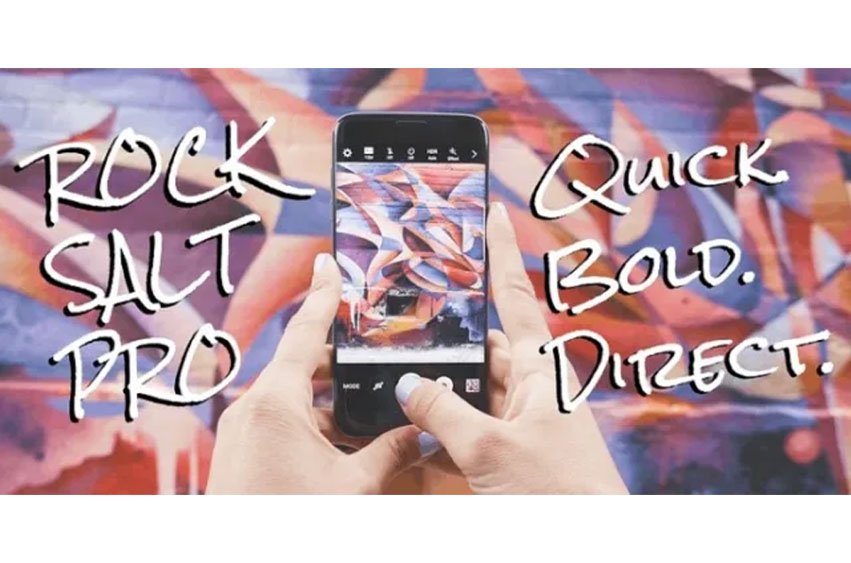
Rock Salt Pro Font Handcrafted with felt tip pens to create a personal style you can use throughout your next project.
Perfectly fit for branding, logo, wedding things, greeting cards, fashion, lookbook, marketing promotion, anytime you want to look fancy elegant but still casual.